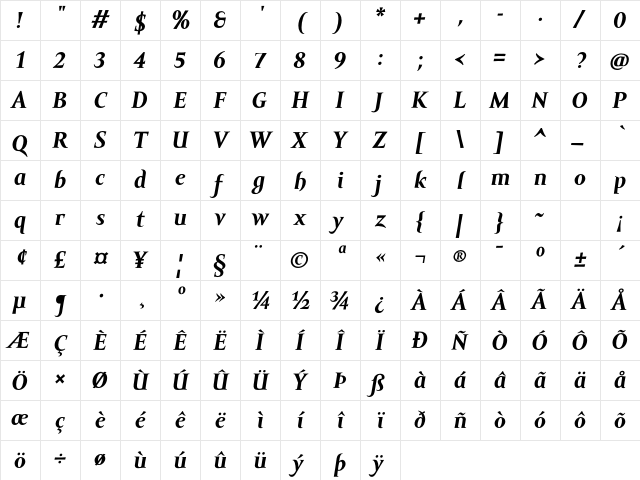
Complete Amor Serif Text Pro Bold Italic glyph index. Displaying only characters natively supported by Amor Serif Text Pro Bold Italic font.
Amor Serif Text Pro carries the refined structure of traditional serif typography, with bracketed terminals and considered proportions that communicate credibility and craft. The slanted form adds forward momentum and visual energy. Its bold stroke weight gives it real presence on the page.
Pro Tip: Use Amor Serif Text Pro for editorial body copy and considered headline work. Pair with a neutral sans for UI elements or captions to create a classic hierarchy.